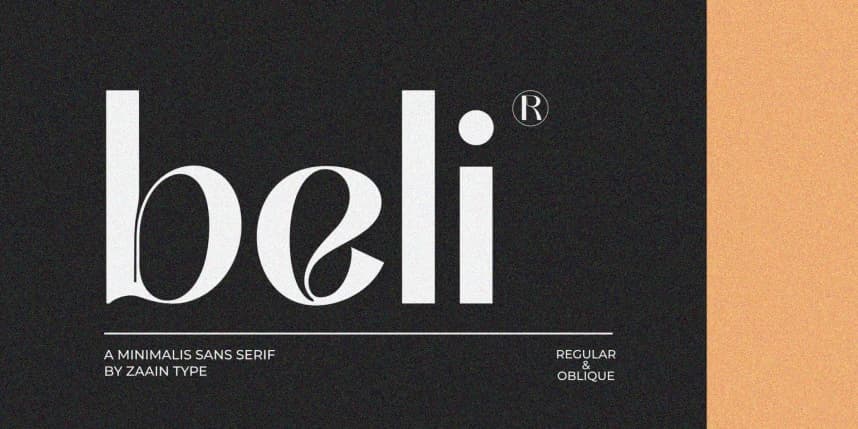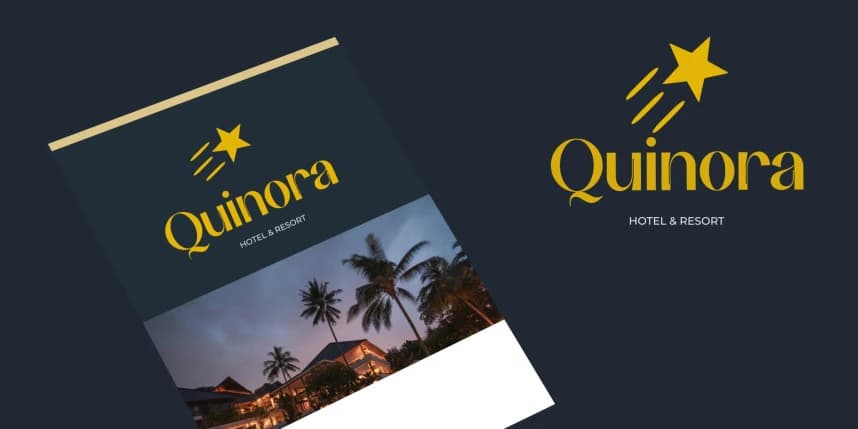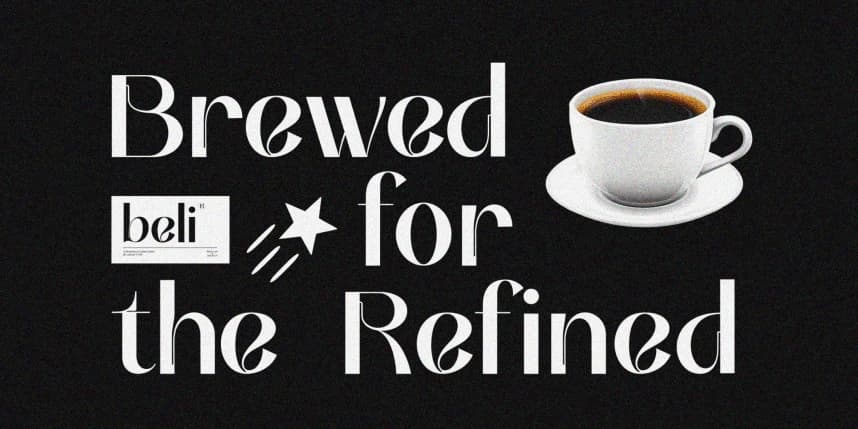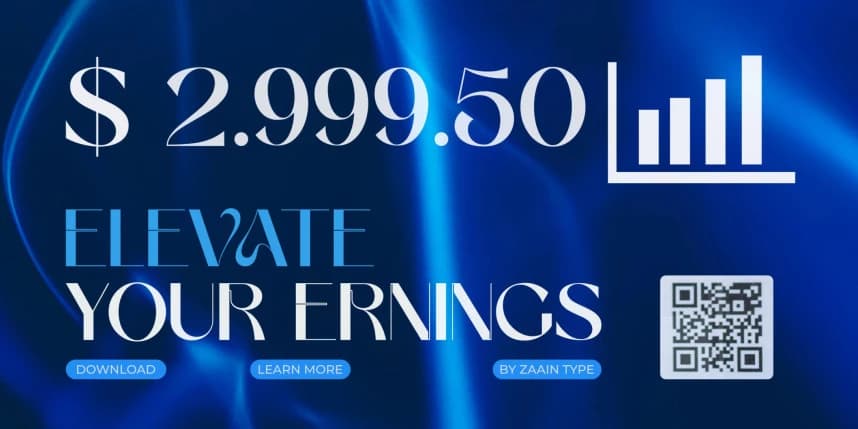
Beli Font
Beli Font is a modern sans serif typeface that blends simplicity with a refined aesthetic. Designed with clean lines and balanced proportions, Beli offers a versatile look that feels both contemporary and approachable.